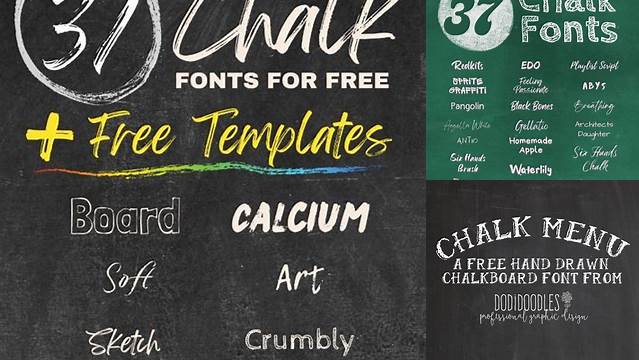
Free Chalk Fonts: Your Guide To Commercial Use
Introduction: Unleash Your Creativity with Chalk Fonts
Hey guys! Are you on the hunt for free chalk fonts that you can use for your commercial projects? You've come to the right place! Chalk fonts have this amazing ability to add a touch of rustic charm and handcrafted feel to any design. Whether you're creating eye-catching posters, designing a menu board for a cozy cafe, or putting together a presentation that needs a bit of a personal touch, chalk fonts can be your secret weapon. This guide is all about helping you discover the best free chalk fonts for commercial use, ensuring your projects stand out while respecting licensing requirements. We'll dive into what makes a font truly "free for commercial use," where to find these gems, and even some tips on how to use them effectively. So, let's get started and explore the wonderful world of chalk fonts!
Top Free Chalk Fonts for Commercial Use: Our Picks
Alright, let's get to the good stuff! We've scoured the web and handpicked some top-notch free chalk fonts for commercial use that are sure to add that perfect touch to your projects. These fonts aren't just free; they're also beautifully designed and highly versatile. First up, we have Chalk Hand Lettering Shaded, a classic chalk font with a slightly rough texture that gives it an authentic handwritten feel. It's perfect for menu boards, posters, and anything that needs a vintage or rustic vibe. Another fantastic option is Amatic SC, a condensed sans-serif typeface that looks great in headlines and titles. While not strictly a chalk font, its playful and slightly imperfect appearance makes it a great choice for designs where you want a touch of informality. For a more whimsical feel, check out Permanent Marker. This font has a bold, marker-like appearance that's ideal for children's books, educational materials, or anything that needs a fun and friendly touch. Next, we have Patrick Hand, a handwriting font that mimics natural handwriting, making it a great choice for personal blogs, invitations, or social media graphics. If you're looking for something a bit more elegant, consider Indie Flower. This font has a flowing, script-like appearance that's perfect for wedding invitations, greeting cards, or anything that needs a touch of sophistication. And let's not forget Shadows Into Light, a light and airy handwritten font that's perfect for quotes, blog posts, or any design where you want a delicate touch. These are just a few of the many amazing free chalk fonts out there, and we'll keep adding to this list as we discover more. Remember to experiment with different fonts and find the ones that best suit your project's needs. In the following sections, we'll share some tips on how to effectively use these fonts in your designs.
Specific Font Recommendations and Examples
Let’s dive into some specific free chalk font recommendations, complete with examples of how you might use them. This will give you a clearer picture of how these fonts can elevate your designs. First, consider Chalkboard, a font that truly captures the essence of traditional chalkboard lettering. Imagine using it for a restaurant's daily specials board, instantly evoking a sense of cozy, handcrafted appeal. Or, picture it on a poster for a local farmers market, adding a touch of rustic charm. Chalkboard is highly legible and versatile, making it a solid choice for various projects. Next up is Pencil Pete, a font that mimics the slightly shaky, uneven lines of pencil writing on paper. This font is perfect for adding a personal, almost diary-like quality to your designs. Think about using it in a travel blog to caption photos, giving your readers a sense of your handwritten notes from your adventures. Or, incorporate it into a children’s book to create a friendly and approachable feel. For a bolder statement, check out Return to Sender. This font has a strong, impactful presence, making it ideal for headlines and titles. Its slightly distressed appearance adds a touch of edginess, making it a great choice for band posters or promotional materials for a coffee shop with a cool, urban vibe. Now, let’s talk about Sketch Block. This font has a unique, three-dimensional effect that makes it stand out from the crowd. Imagine using it for a website banner or a presentation title, instantly grabbing your audience's attention. Its playful yet professional look makes it versatile enough for various applications. Finally, consider The Quiet Sleeper. This font has a softer, more delicate chalk texture, perfect for designs that require a subtle, understated feel. Think about using it for a wedding invitation or a greeting card, adding a touch of elegance and charm. These examples should give you a good starting point for exploring the possibilities with free chalk fonts. Remember, the key is to experiment and find the fonts that best match the tone and style of your project. In the next section, we'll dive into practical tips for effectively using these fonts in your design work.
Tips for Using Chalk Fonts Effectively: Design Best Practices
Okay, now that you’ve got a fantastic collection of free chalk fonts for commercial use, let's talk about how to use them effectively. Just like any design element, chalk fonts have their strengths and weaknesses, and knowing how to leverage them will make your projects shine. First and foremost, legibility is key. Chalk fonts often have a textured, hand-drawn appearance, which can sometimes make them harder to read than more traditional typefaces. So, it's crucial to use them in situations where readability is prioritized. For example, chalk fonts work great for headings, titles, and short bursts of text, but they might not be the best choice for long paragraphs of body copy. Think about using them sparingly to add emphasis and visual interest, rather than overwhelming your design. Contrast is another important factor to consider. Chalk fonts typically look best against dark backgrounds, mimicking the look of chalk on a chalkboard. This creates a strong contrast that makes the text pop. However, you can also experiment with using them on lighter backgrounds, as long as you ensure there's enough contrast for readability. Pay attention to the size and spacing of your chalk fonts. Because of their textured appearance, they often look better when they're larger in size. This allows the details of the font to be visible and prevents the text from looking muddy. Also, consider adjusting the letter spacing (tracking) and line height (leading) to improve readability. Giving the letters and lines a little breathing room can make a big difference. Think about pairing your chalk fonts with other fonts. Using a chalk font for your headings and a clean, sans-serif font for your body copy can create a balanced and visually appealing design. This combination allows the chalk font to stand out while ensuring the body text is easy to read. Remember, the goal is to create a design that's both beautiful and functional. In the next section, we'll explore some common mistakes to avoid when using chalk fonts.
Common Mistakes to Avoid When Using Chalk Fonts
Using free chalk fonts can really enhance your designs, but there are some common pitfalls to watch out for. Knowing these mistakes can save you from creating a design that looks amateurish or is difficult to read. One of the biggest mistakes is overuse. While chalk fonts can add a charming touch, using them for every element of your design can quickly become overwhelming. Imagine a poster where the headline, body text, and even the fine print are all in a chalk font – it would likely be a visual mess. Instead, use chalk fonts strategically, perhaps for headlines or callouts, and pair them with a cleaner, more legible font for body text. Another common mistake is ignoring legibility. Chalk fonts, with their textured and sometimes quirky letterforms, aren’t always the easiest to read, especially at smaller sizes. Avoid using them for lengthy paragraphs or in situations where quick comprehension is crucial. Always prioritize clarity over aesthetics. Before settling on a chalk font, test it out in different sizes and contexts to ensure it remains readable. Contrast is also crucial. Chalk fonts typically work best against dark backgrounds, mimicking the look of actual chalk on a chalkboard. Using a chalk font on a light background without enough contrast can make the text fade into the background, defeating the purpose. Always aim for a strong contrast to make your text pop. Be mindful of spacing. The unique texture of chalk fonts can sometimes make them appear crowded, especially when letter spacing and line height aren't properly adjusted. Tight spacing can make the text look jumbled and hard to read. Experiment with increasing the letter spacing (tracking) and line height (leading) to give the letters some breathing room. This can significantly improve legibility. Finally, don't forget about context. Chalk fonts have a specific aesthetic that might not be suitable for every project. While they're great for designs that need a rustic, handmade, or vintage feel, they might not be the best choice for corporate reports or formal documents. Consider the overall tone and message of your project and choose fonts that align with it. By avoiding these common mistakes, you can effectively leverage the charm of free chalk fonts in your designs. In our final section, we'll wrap up with some resources and final thoughts on using these versatile typefaces.
Conclusion: Resources and Final Thoughts on Free Chalk Fonts
So, guys, we've journeyed through the world of free chalk fonts for commercial use, covering everything from what makes a font "free," where to find them, specific recommendations, design tips, and common mistakes to avoid. Hopefully, you're now feeling confident and inspired to incorporate these fantastic fonts into your projects! Remember, the key to success with chalk fonts is using them thoughtfully and strategically. They're a fantastic way to add personality and a handcrafted feel to your designs, but they're not a one-size-fits-all solution. Always prioritize legibility, contrast, and context. Before we wrap up, let’s recap some helpful resources. Google Fonts is an amazing starting point, offering a vast library of open-source fonts that are free for commercial use. Font Squirrel is another excellent option, providing hand-selected fonts with clear commercial licenses. DaFont has a huge selection, but remember to double-check the license for each font. Creative Fabrica often has freebies with commercial licenses, so keep an eye on their website. And don't forget to explore individual designers' websites or platforms like Behance and Dribbble, where you might find hidden gems. As a final thought, remember that the world of typography is constantly evolving. New fonts are being created all the time, and licensing terms can change. It's always a good idea to stay updated on the latest trends and resources. Experiment with different fonts, and don't be afraid to break the rules sometimes! The most important thing is to have fun and create designs that you're proud of. With the right free chalk fonts and a little creativity, you can add a touch of magic to any project. Happy designing!